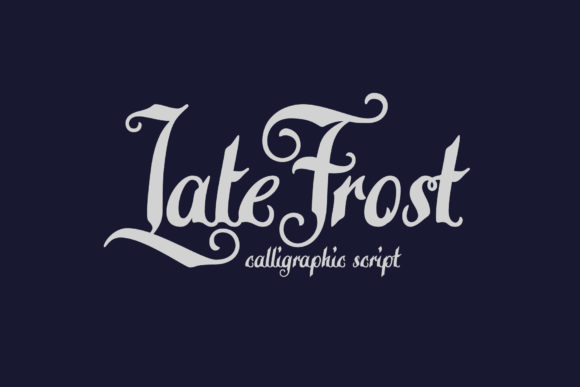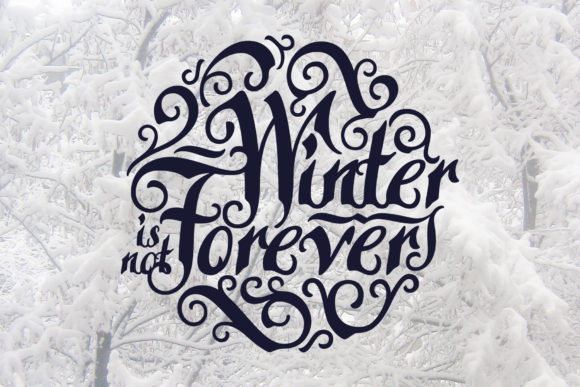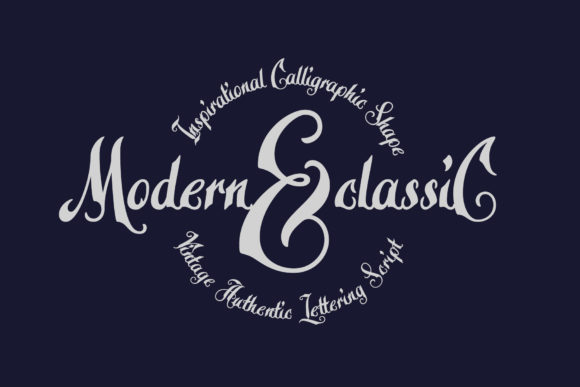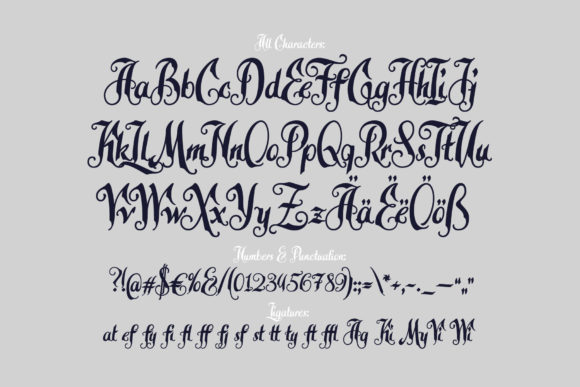
Late Frost Font: Elegant Calligraphy Script for Wedding & Logo Design
About the Late Frost Font
The Late Frost Font is here to transform your projects with its distinctive character and style. Late Frost an equally sophisticated and bold handwritten font that’s great for delivering any message with confidence, authenticity and charm. It will elevate a wide range of crafting ideas, from cards, to branding, labels and much more.
Late Frost’s bold strokes and confident character make it ideal for headlines, short impactful quotes, and branding elements where a strong, authentic voice is desired. It excels in logo design, packaging for premium products, and short-form social media content. However, its handwritten nature makes it less suitable for extended body text or UI elements requiring high readability.
Consider pairing Late Frost with a clean sans-serif like Montserrat for a modern contrast, or a classic serif like Garamond for a touch of timeless elegance. For a more playful feel, a geometric sans-serif such as Futura would create a striking juxtaposition.
The overall personality of Late Frost is bold yet sophisticated, conveying both confidence and approachability. It’s well-suited to brands aiming for a premium, handcrafted feel, or projects needing a touch of rustic charm with a contemporary edge.
Late Frost Font Usage Examples
Late Frost Font Example